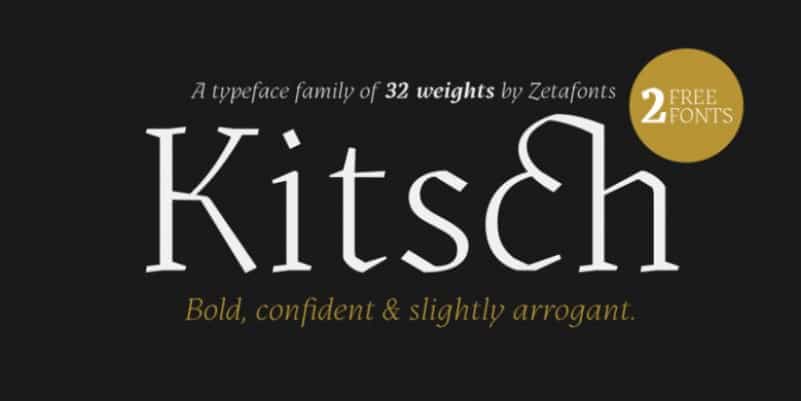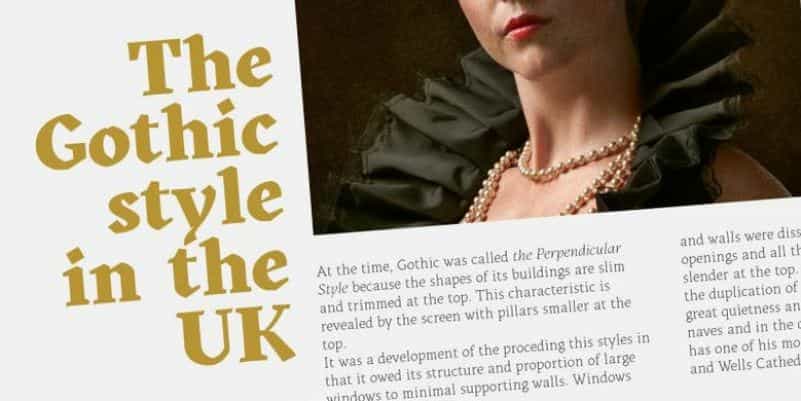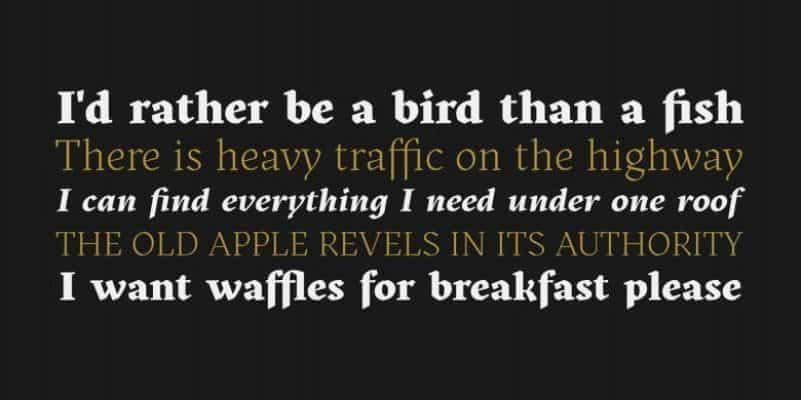
Kitsch is a typeface happily living at the crossroads between classical latin and medieval gothic letterforms. But, rather than referencing historical models like the italian Rotunda or the french Bastarda scripts.